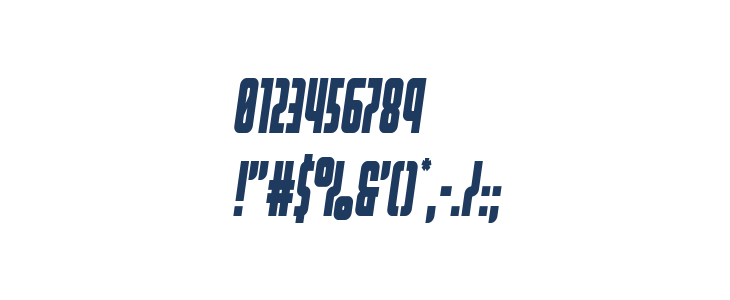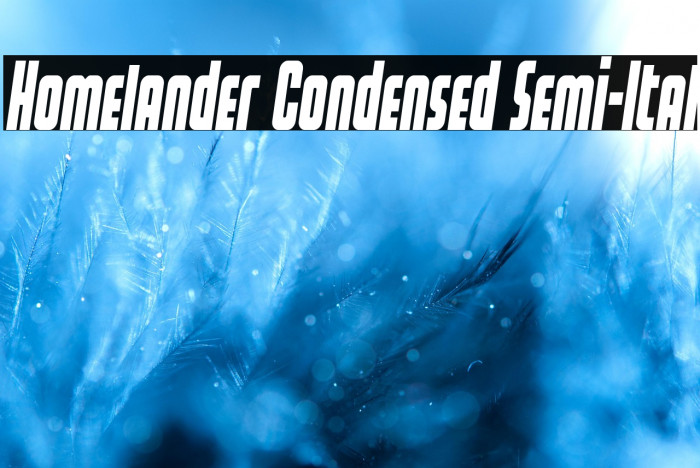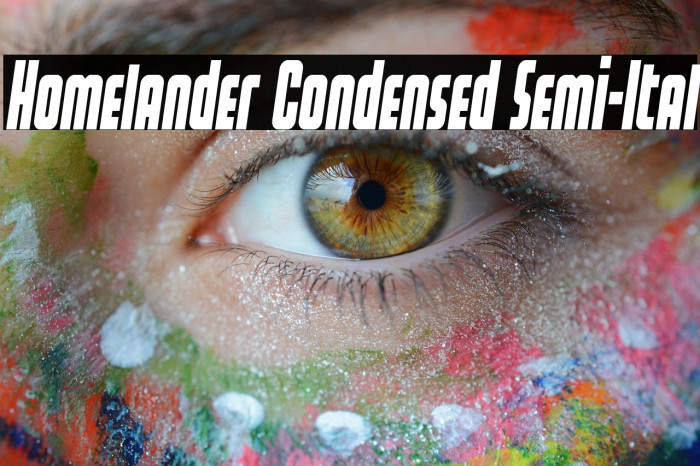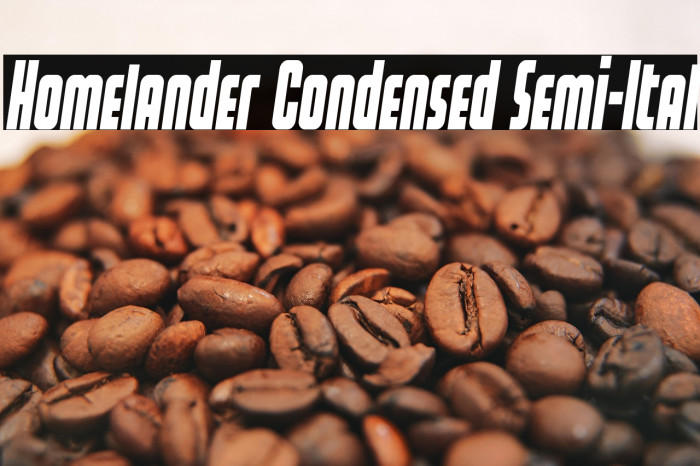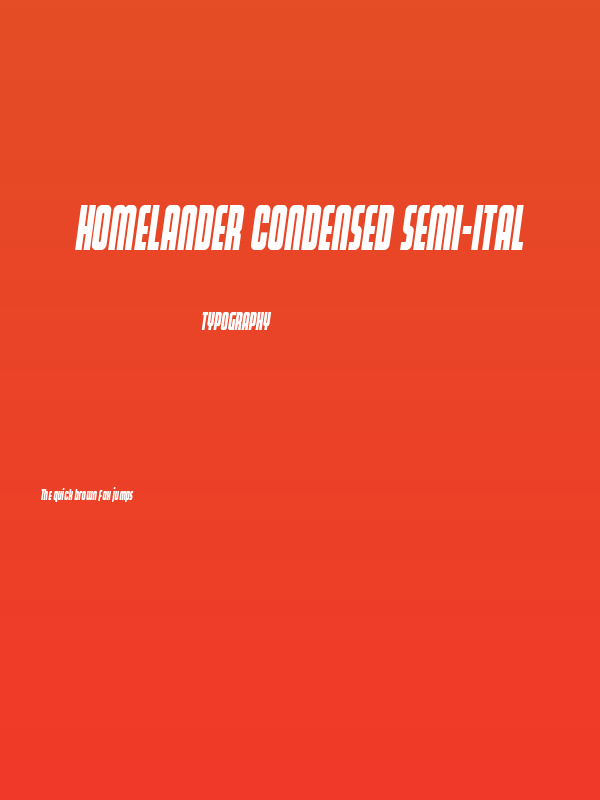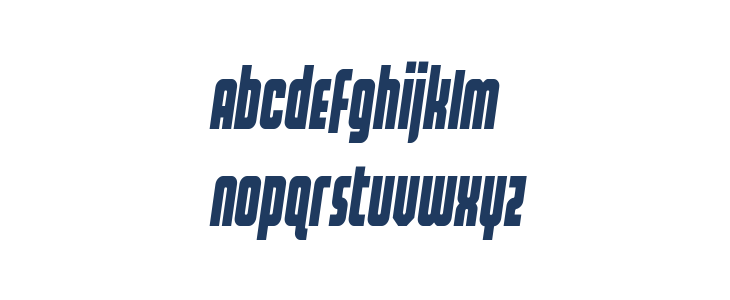
Homelander Condensed Semi-Ital Font
Homelander Condensed Semi-Ital Description
This font features a bold and condensed style with a semi-italic slant, giving it a dynamic and modern appearance. The uppercase and lowercase letters are designed with a strong vertical emphasis, while the numbers and special characters maintain a consistent weight and style. The overall design is sleek and impactful, making it suitable for attention-grabbing headlines and titles. The characters are tightly spaced, enhancing the condensed look, and the medium contrast in stroke thickness adds to its readability and visual appeal.
| Proposed Projects | Ideal for use in posters, advertising, branding, and any project requiring a bold statement. |